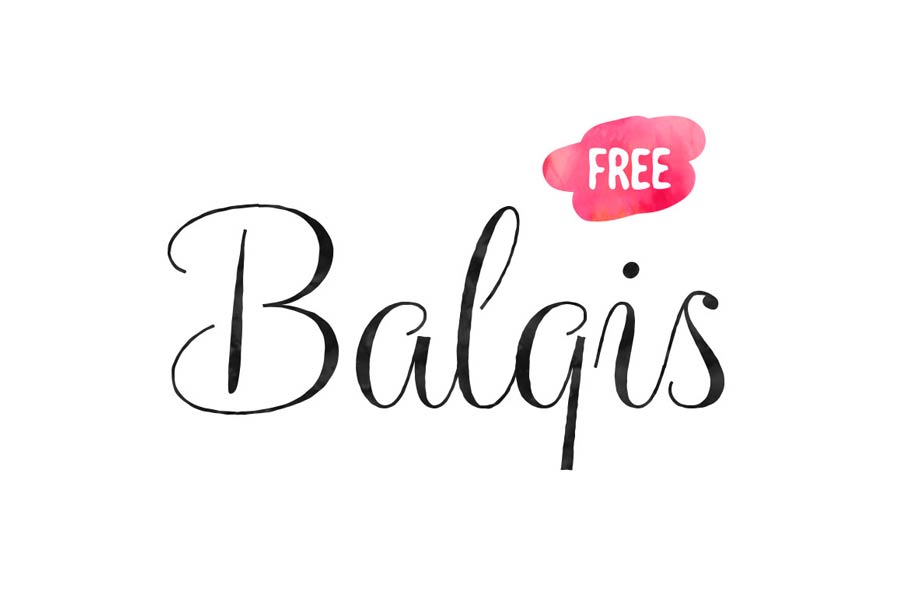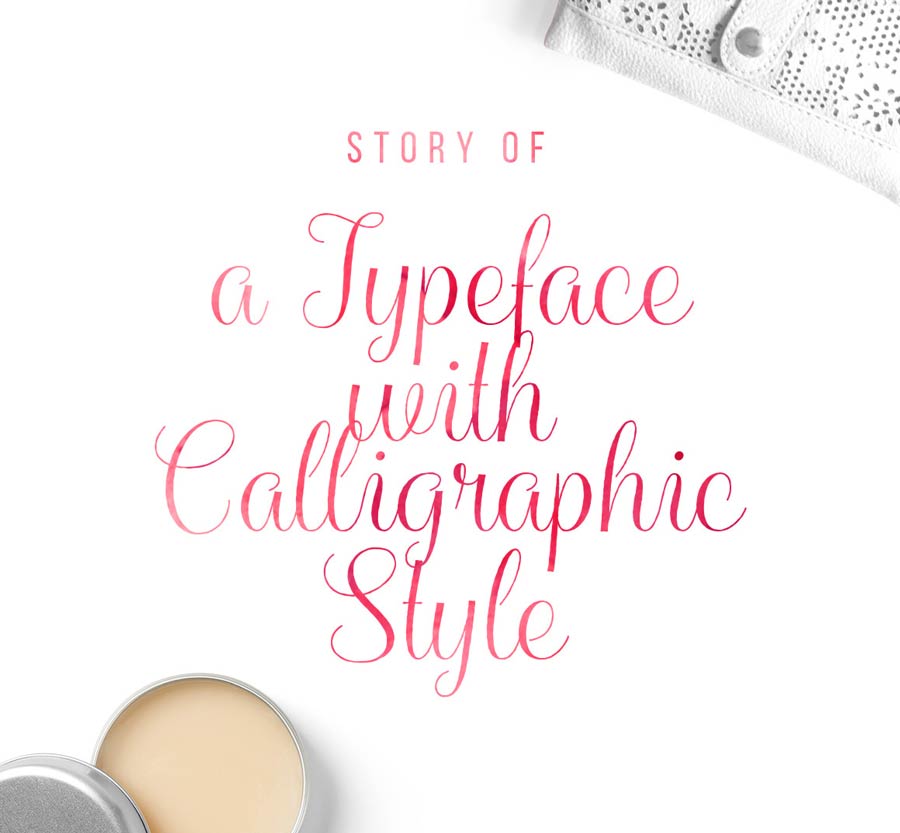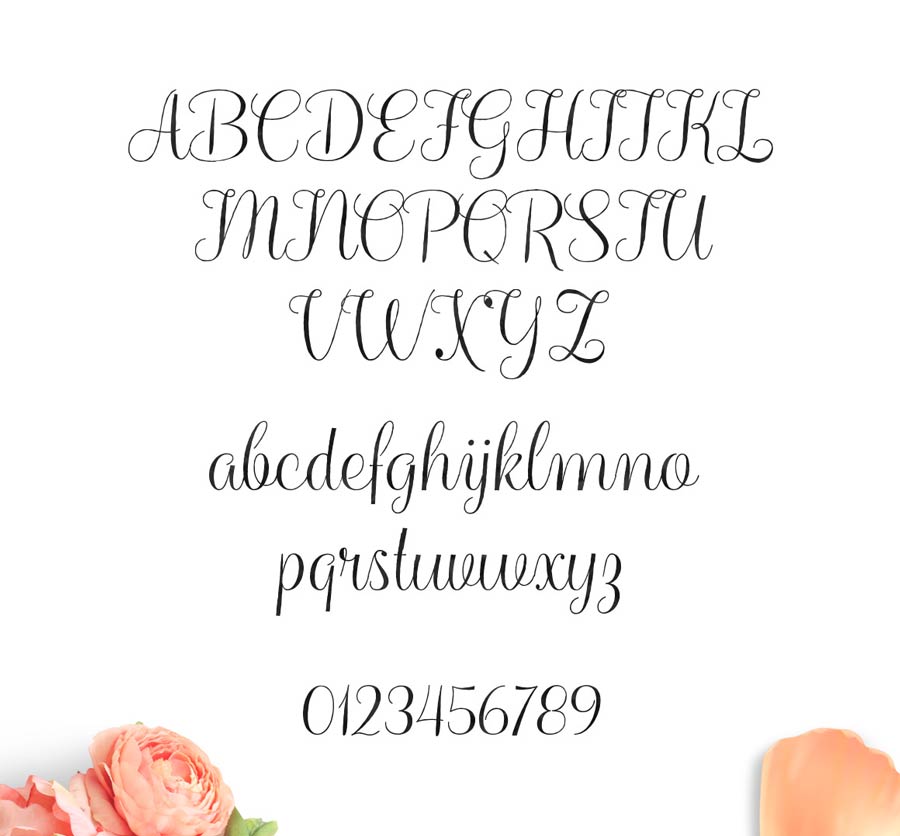
Balqis is a feminine calligraphic style font that you can download for free. It has high contrast in strokes and very legible as a script font. Balqis works great on print designs like wedding invitation cards, promotional items for females and with watercolor effect.
Characters preview